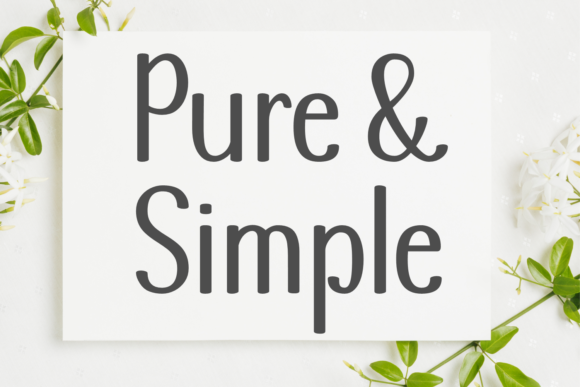
Introducing the Pure & Simple Font - the perfect addition to your collection if you're on the hunt for a clean and timeless sans-serif font. This font is the epitome of simplicity, with a touch of creativity that will elevate your design projects to the next level.
The Pure & Simple Font is a must-have for anyone looking to create classic menu designs. Its elegant and refined style will add a touch of sophistication to your projects, making it ideal for high-end restaurants, cafes, and luxury brands.
Created by Creative Fabrica Fonts, this font is a versatile addition to any designer's toolkit. It offers multilingual support, ensuring that your designs can reach a wider audience, regardless of language barriers. Plus, it is compatible with cutting machines like Cricut and Silhouette, making it perfect for all your crafting needs.
But what really sets the Pure & Simple Font apart from the rest is its ability to evoke emotions. Its clean lines and timeless aesthetic create a sense of calm and serenity, while also exuding a sense of creativity and innovation. Whether you're designing a menu, a website, or a logo, this font will make your work stand out from the crowd.